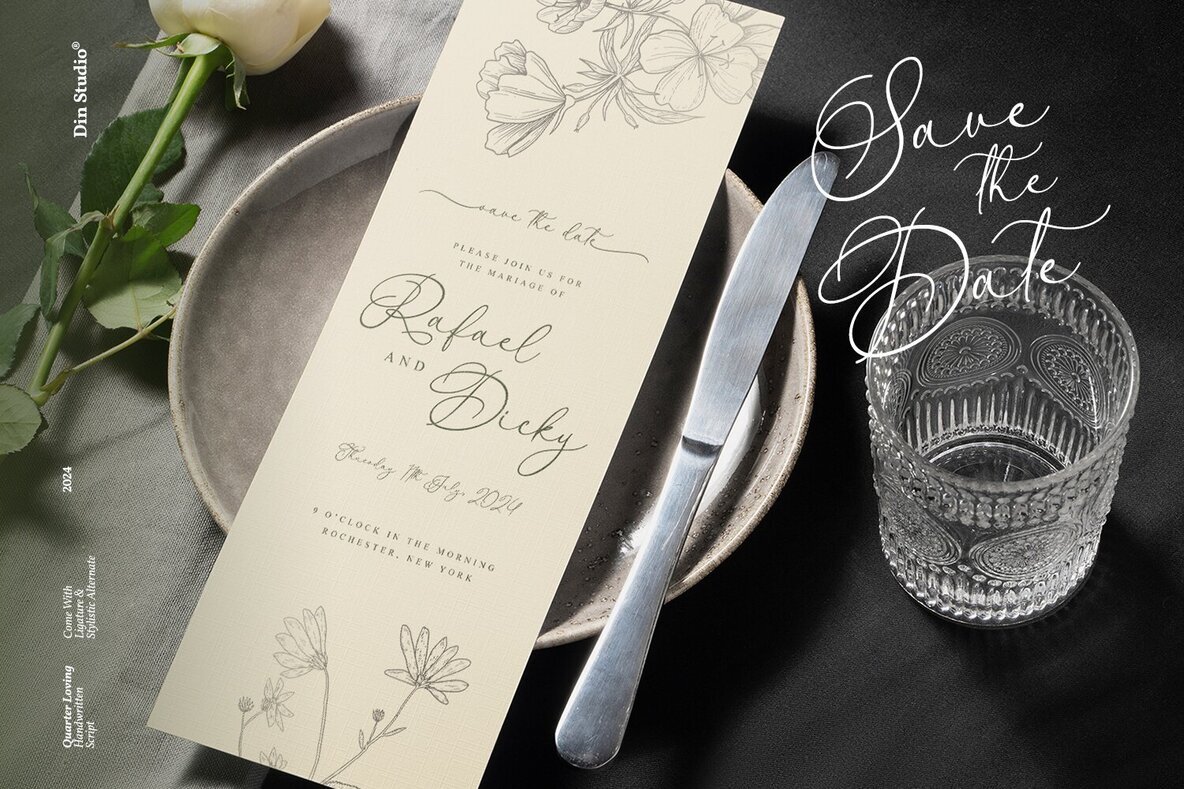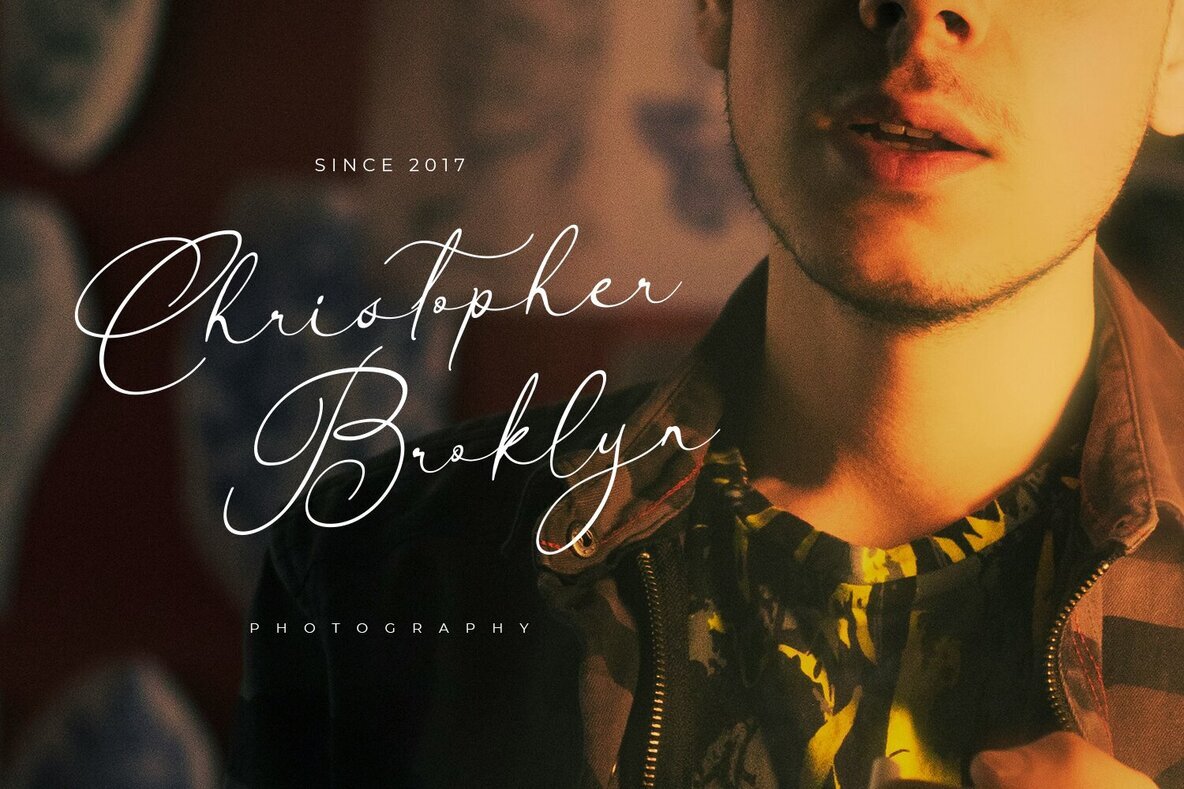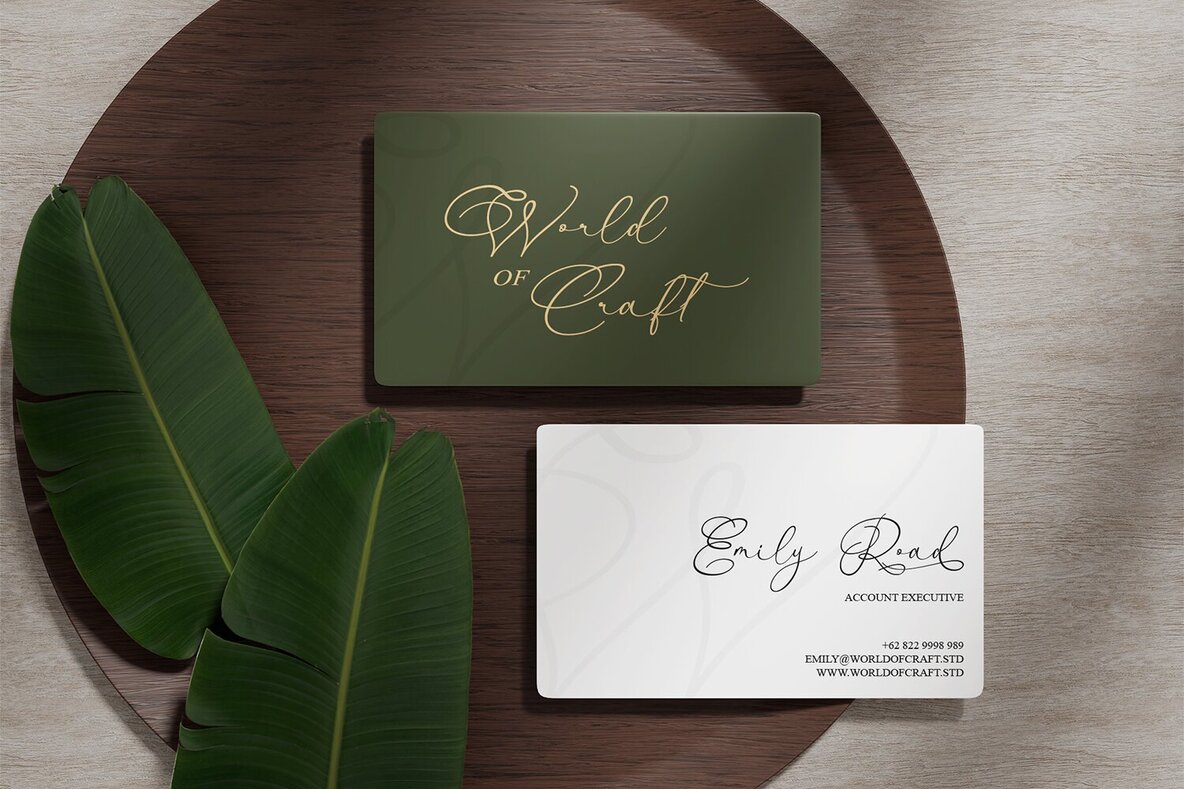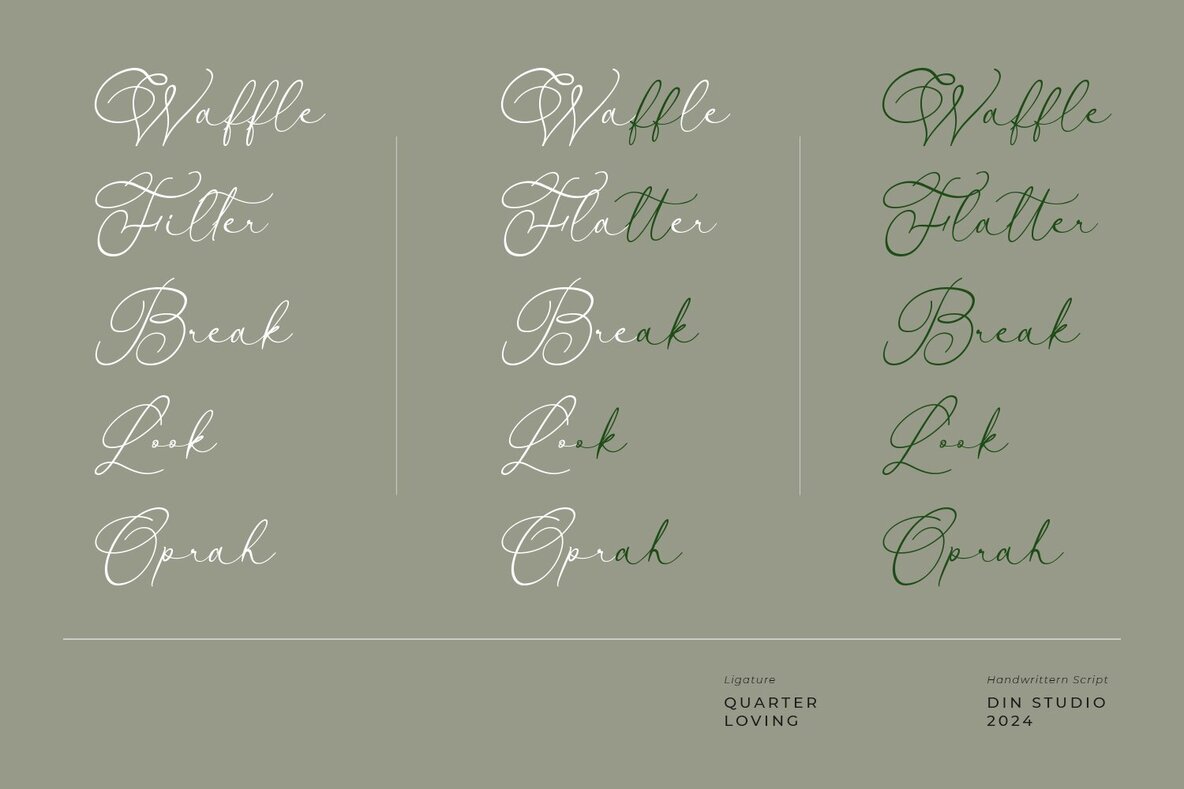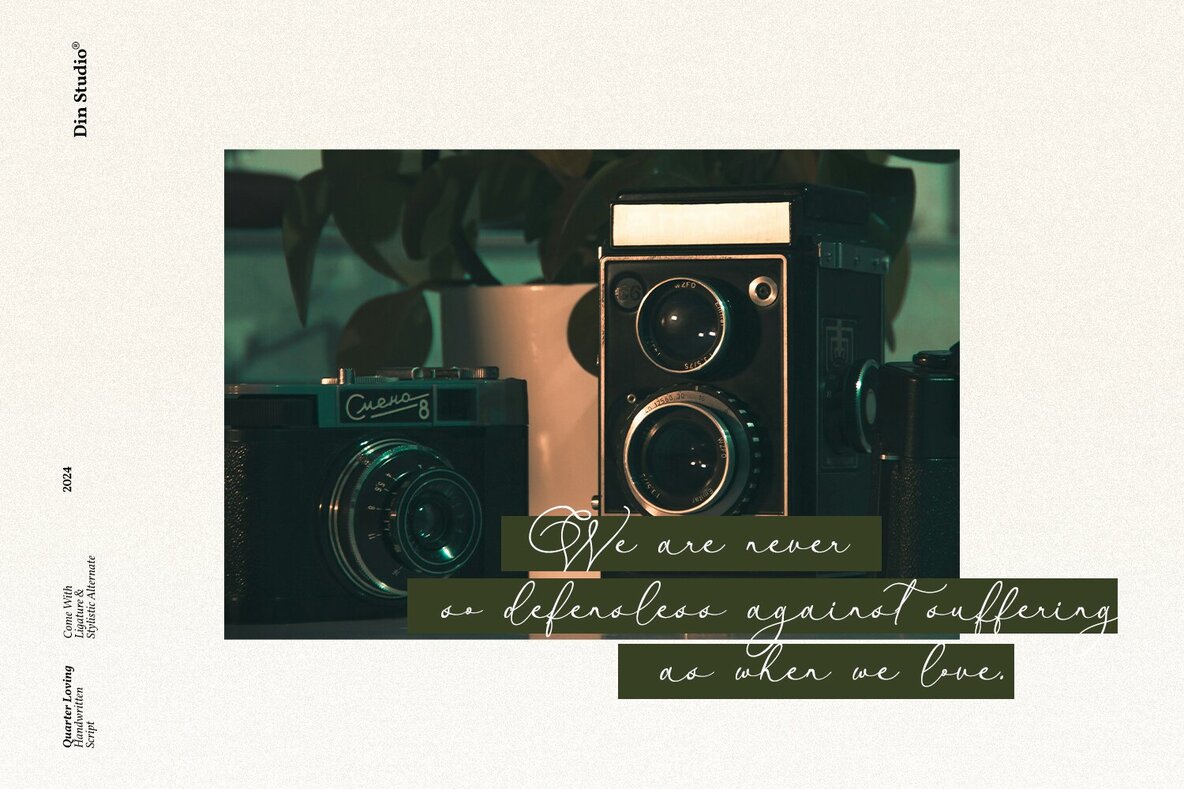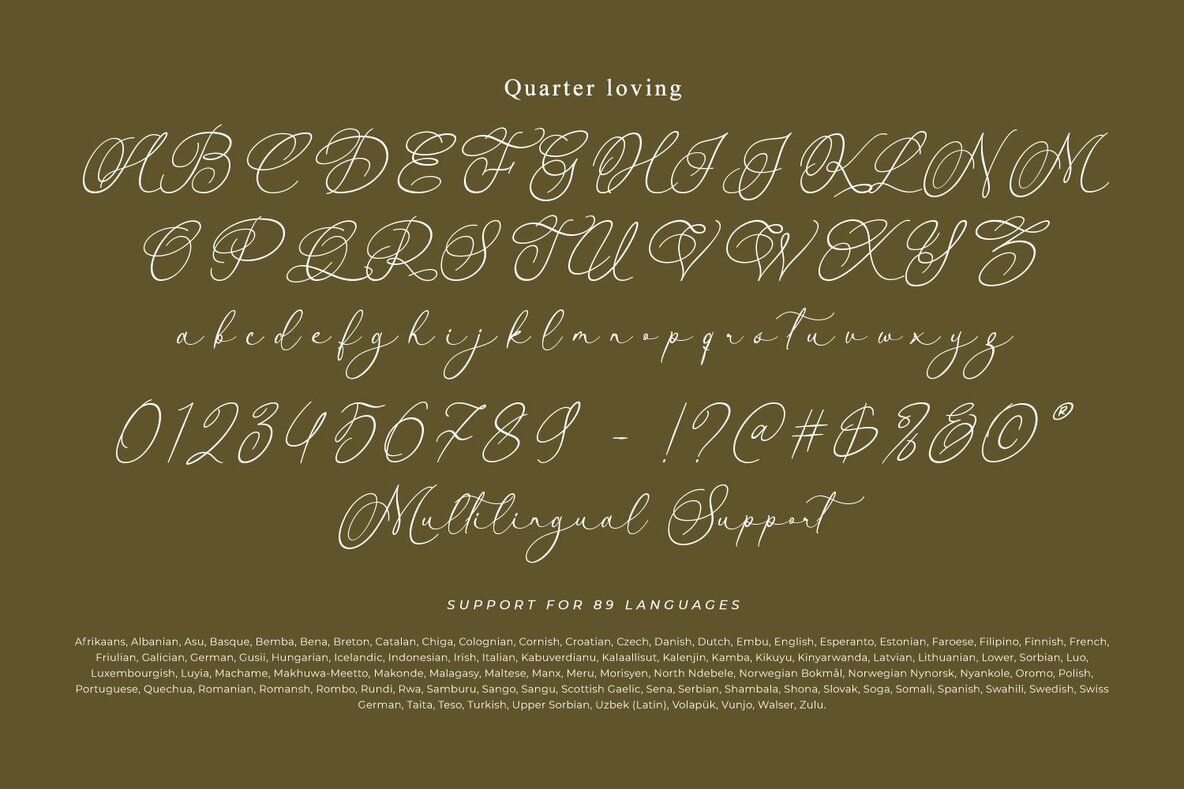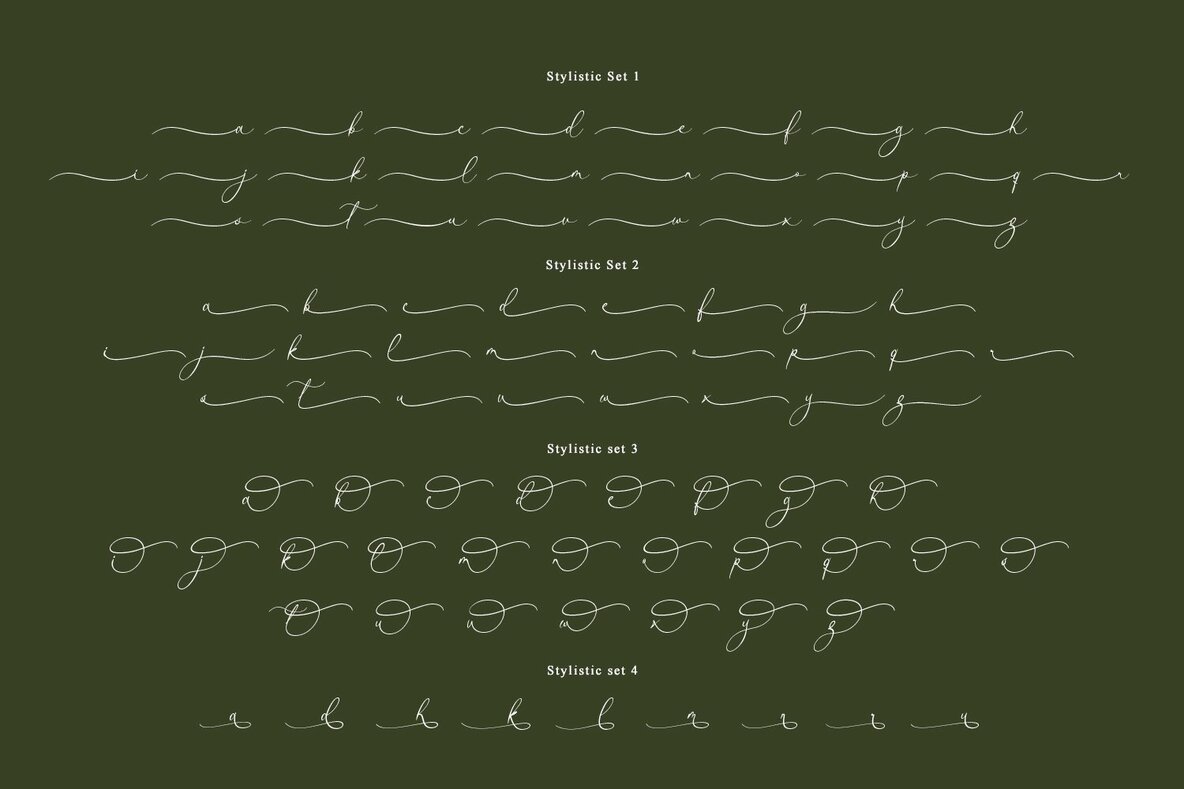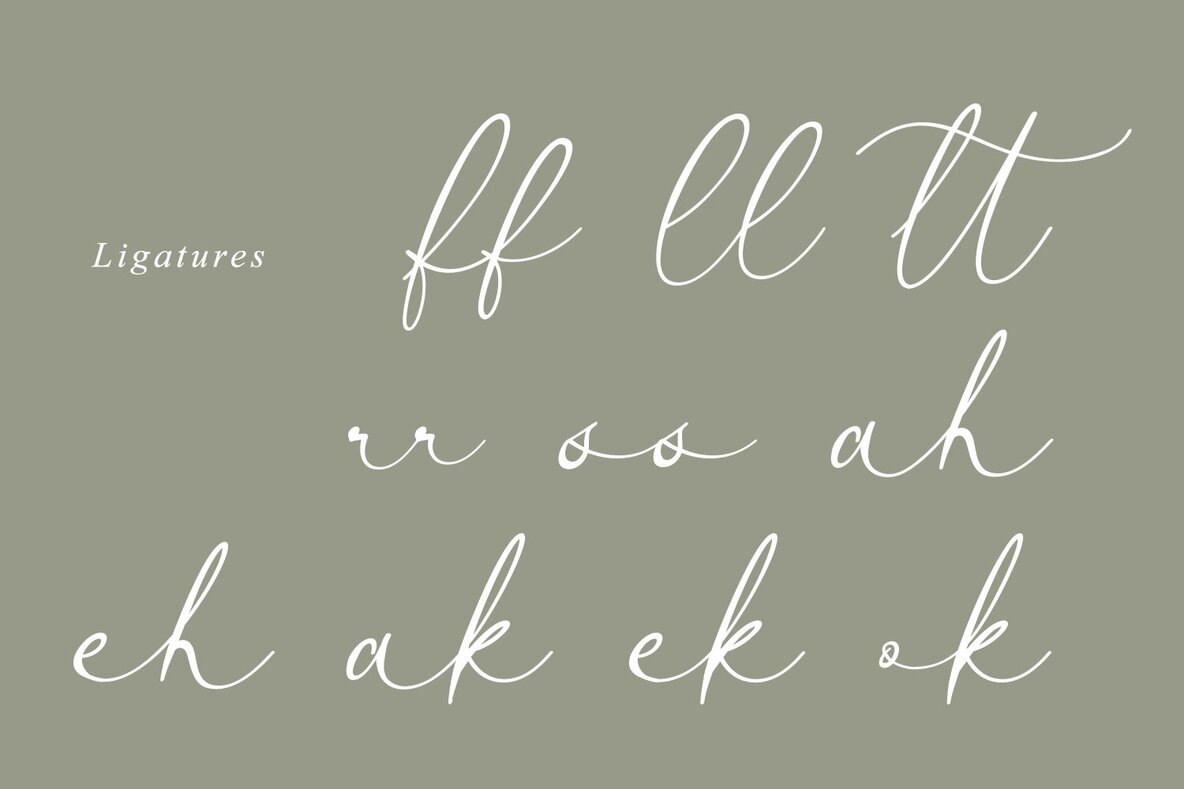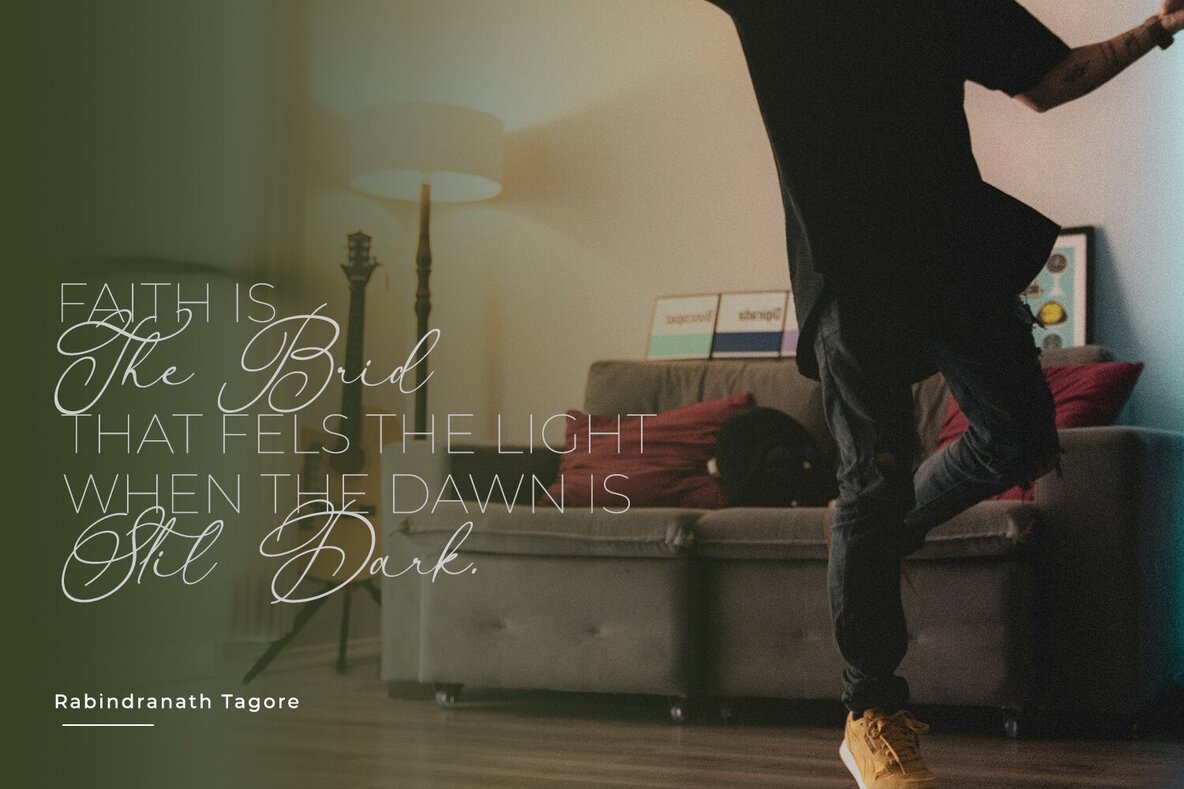
Quarter Loving Font
Quarter Loving Regular
Quarter Loving is a whimsical handwritten font that infuses your designs with charm and character. With its thin weight and connected letters, this font flows beautifully, creating a seamless script. The inconsistent letter proportions and playful swinging ends give it a unique, lively appearance. In addition, enjoy the features here. Features: Quarter Loving fits in logos, posters, flyers, branding materials, print media, editorial layouts, and many more designs. Find out more ways to use this font by taking a look at the font preview.